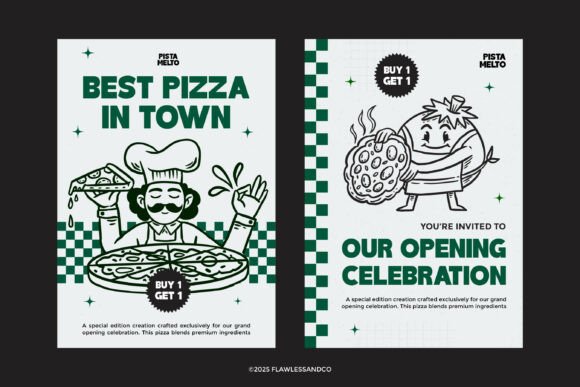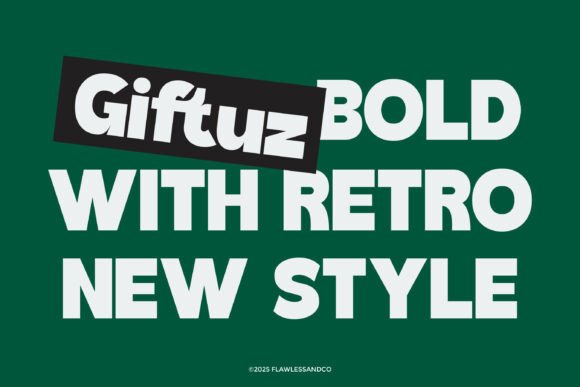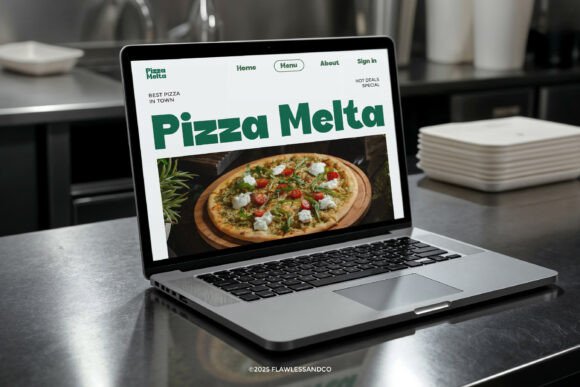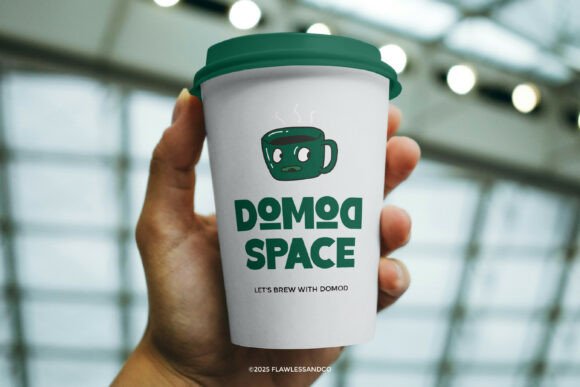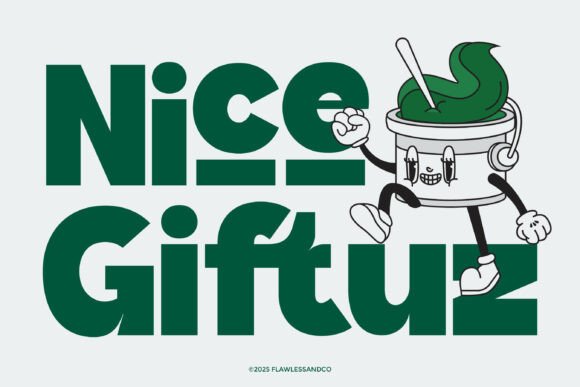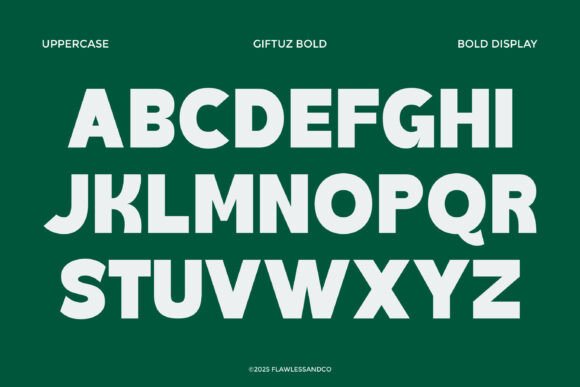
Introducing Giftuz Font: The Ultimate Bold and Playful Sans Serif for Your Designs
Are you tired of using the same old fonts in your designs? Do you want to add a touch of personality and retro charm to your branding? Look no further than Giftuz Font, a bold and playful sans serif font that’s sure to make your designs stand out with confidence and character.
What is Giftuz Font?
Giftuz Font is a modern sans serif font designed to bring a fun and energetic vibe to your designs. With its thick shapes and smooth curves, Giftuz is the perfect choice for designers and crafters who want to add a touch of playfulness and whimsy to their work. Whether you’re creating a logo, branding materials, or social media graphics, Giftuz Font is sure to make a statement.
Key Features of Giftuz Font
- Bold and Playful: Giftuz Font is designed to be bold and playful, making it perfect for designs that need to stand out.
- Sans Serif: With its clean and modern sans serif design, Giftuz Font is easy to read and versatile.
- Thick Shapes: The thick shapes of Giftuz Font give it a strong and confident look that’s perfect for branding.
- Smooth Curves: The smooth curves of Giftuz Font add a touch of elegance and sophistication to your designs.
- Fun and Energetic: Giftuz Font has a fun and energetic vibe that’s perfect for designs that need to be youthful and vibrant.
Who is Giftuz Font for?
Giftuz Font is perfect for designers and crafters who want to add a touch of personality and retro charm to their designs. Whether you’re creating branding materials for a small business, designing social media graphics, or crafting logos, Giftuz Font is a great choice. It’s also perfect for:
- Graphic Designers: Giftuz Font is a great addition to any graphic designer’s toolkit.
- Branding Experts: If you’re looking for a font that can help you create a strong brand identity, Giftuz Font is a great choice.
- Social Media Managers: Giftuz Font is perfect for creating social media graphics that need to stand out.
- Crafters: If you’re a crafter looking for a font to use in your handmade projects, Giftuz Font is a great choice.
- Use it as a headline font: Giftuz Font is perfect for headlines and titles.
- Pair it with a serif font: Pairing Giftuz Font with a serif font can create a nice contrast and add visual interest to your designs.
- Experiment with colors: Giftuz Font looks great in bold and bright colors, so don’t be afraid to experiment.
Giftuz Font is a bold and playful sans serif font that’s perfect for designers and crafters who want to add a touch of personality and retro charm to their designs. With its thick shapes, smooth curves, and fun and energetic vibe, Giftuz Font is sure to make your designs stand out with confidence and character. So why wait? Download Giftuz Font today and start creating designs that are truly one-of-a-kind.